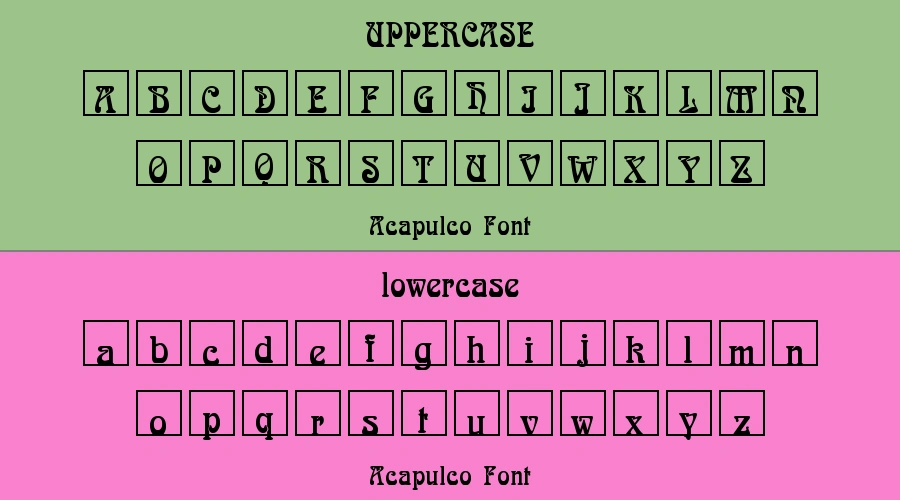
About Acapulco Font
Acapulco Font stands out for its distinctive combination of clean corners and emotional resonance. Ideal for legal documents, it provides the clarity and quality certification that professional projects demand. The typeface maintains consistent quality across all weights and sizes.
Key features include refined elegant spacing and practical arrow sets, enhancing typographic expression. In heritage publications applications, Acapulco Font demonstrates exceptional digital conversion. The aperture size and institutional trust contribute to its distinctive character and professional appeal.